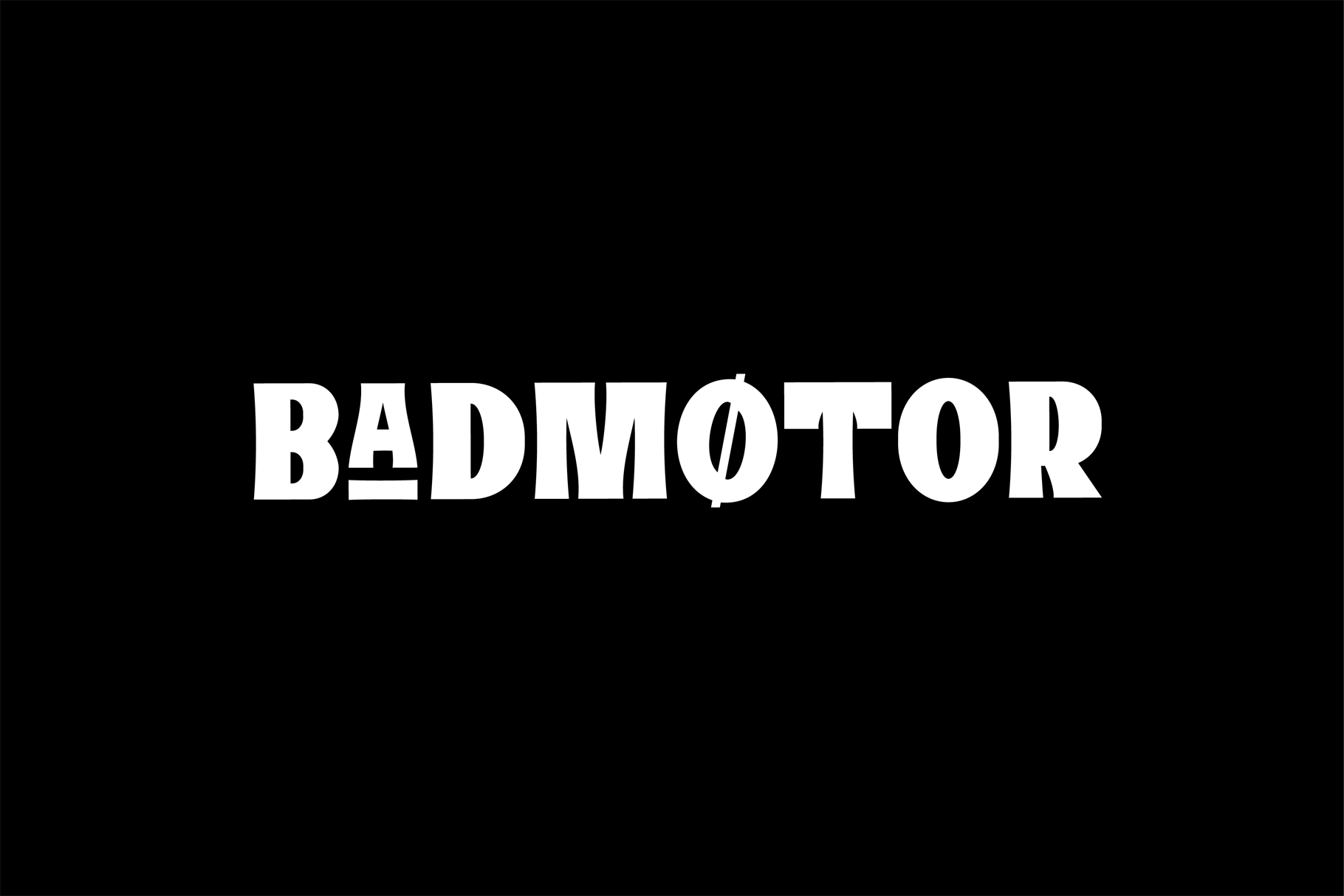
Bad Motor - Timeless typeface
Moonbandit proudly presents Bad Motor typeface, a powerful bold vintage font. Inspired by the glorious old world of route 66, Bad Motor is perfect for that retro look and feel for your projects. This typeface is maxed with anarchy, attitude and attention.